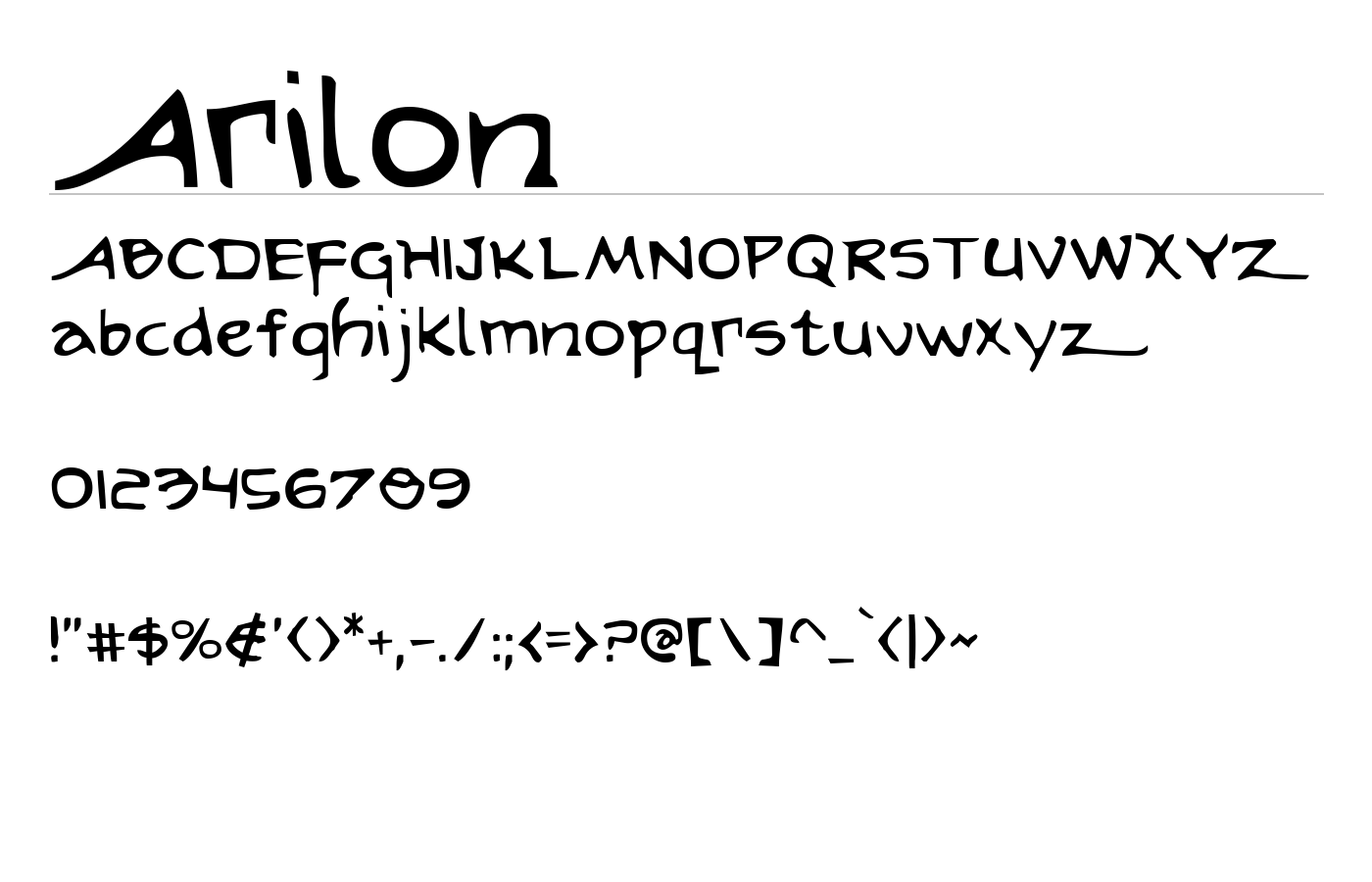
Arilon is a quirky sans serif font with a hand-drawn, playful character that combines irregular shapes and unique letterforms for a distinctive, artistic look. Its moderate weight and medium contrast, along with its lively strokes, make it ideal for creative projects, casual branding, and eye-catching headlines where a friendly, informal vibe is desired. This font works best in logos, posters, and packaging that seek to convey originality and a fun, approachable personality.
Arilon Font
About Arilon Font